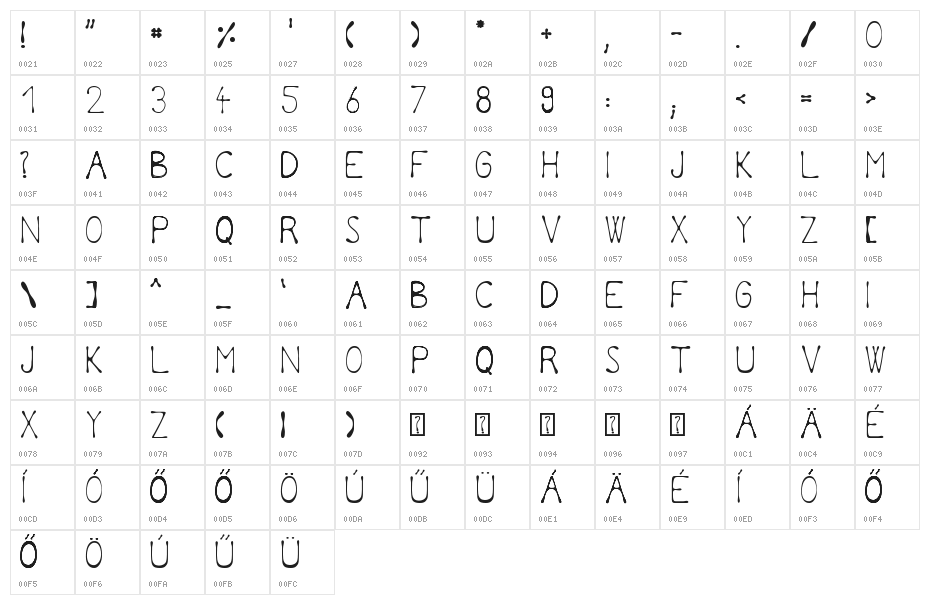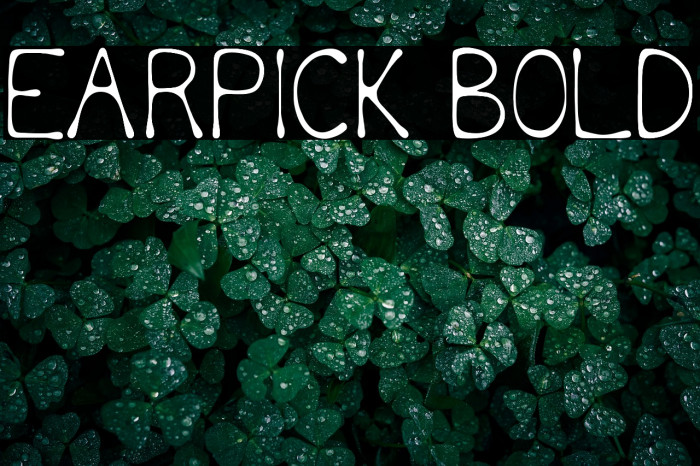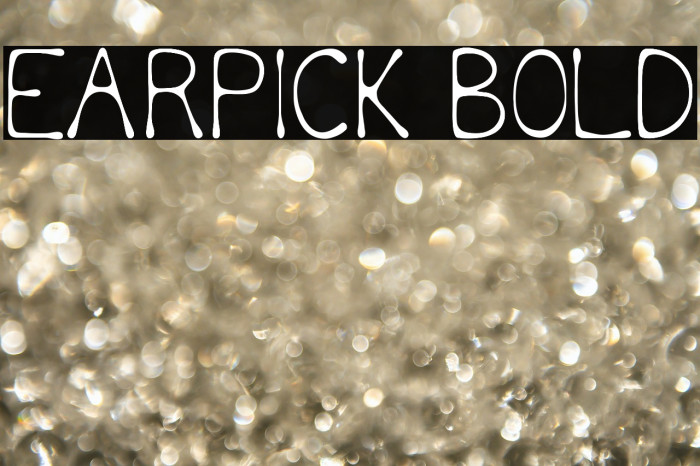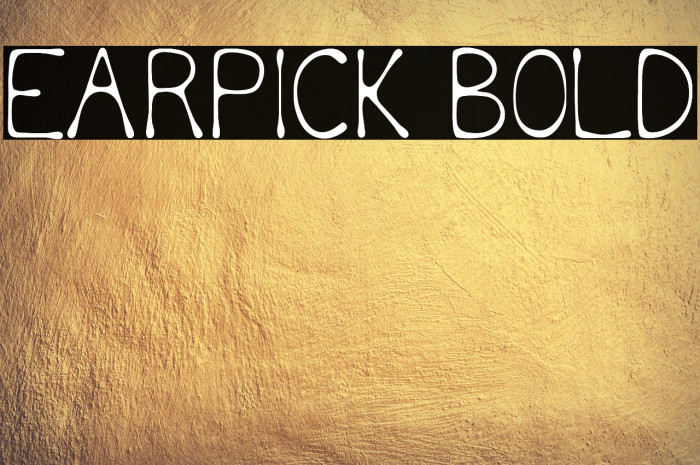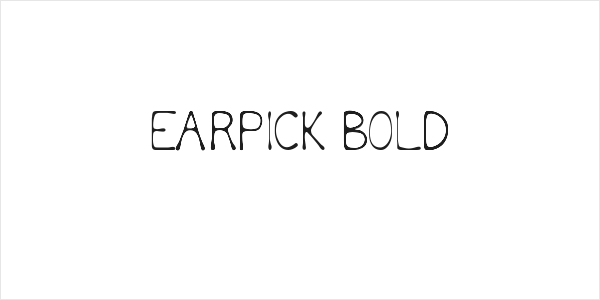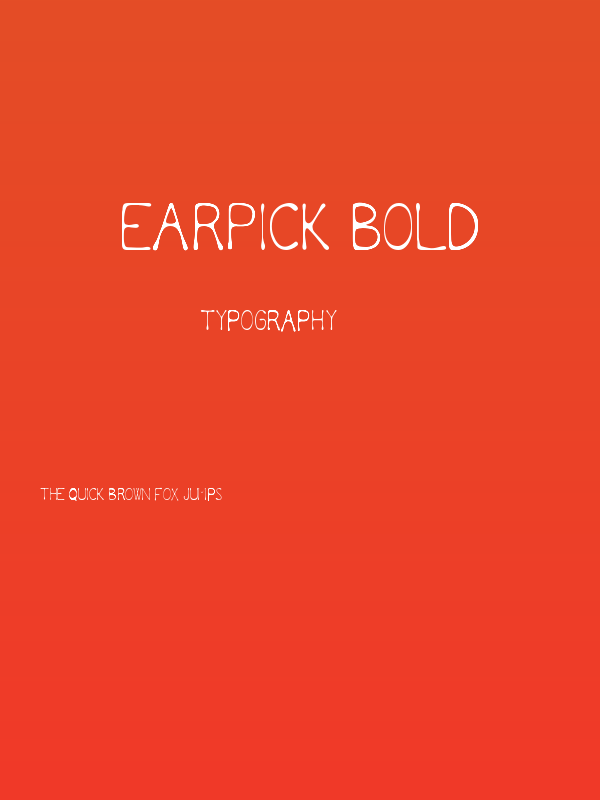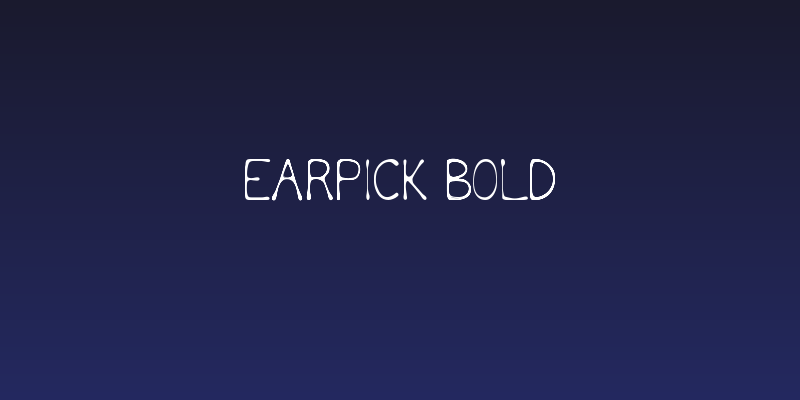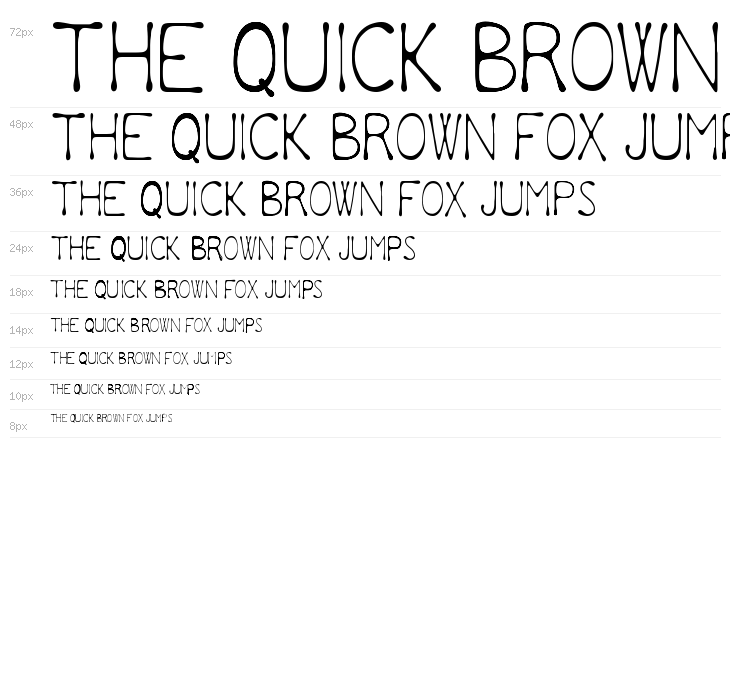
Earpick Bold Font
| Caso d'uso | Headlines, Logos, Informal Text |
| Progetti proposti | Ideal for children's books, greeting cards, playful branding, and informal invitations. |